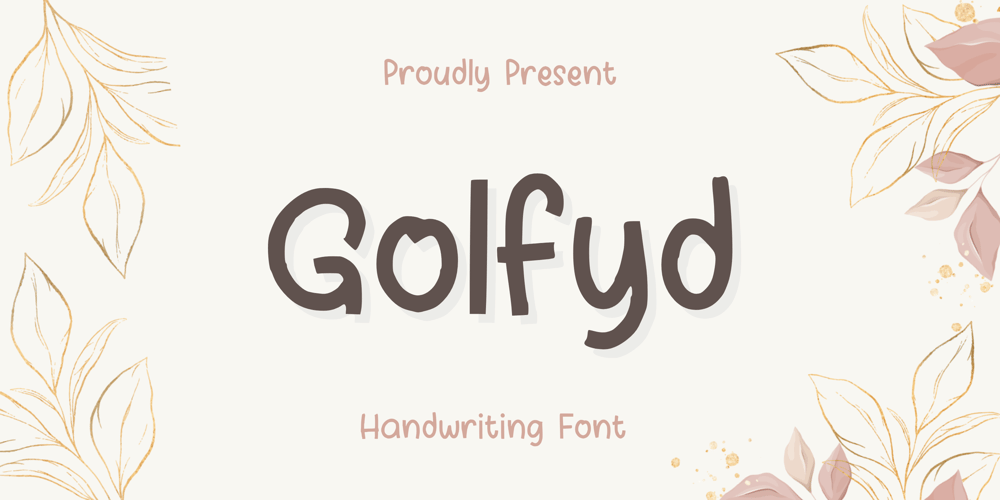
Golfyd Font Family was designed by Nur Aiysah Amalia and published by Aisyah. Golfyd contains 1 styles and family package options. Golfyd is a friendly and casual handwritten font. Whether you’re using it for crafts, digital design, presentations, or making greeting cards, this font has the potential to become your favorite go-to font, no matter the occasion!